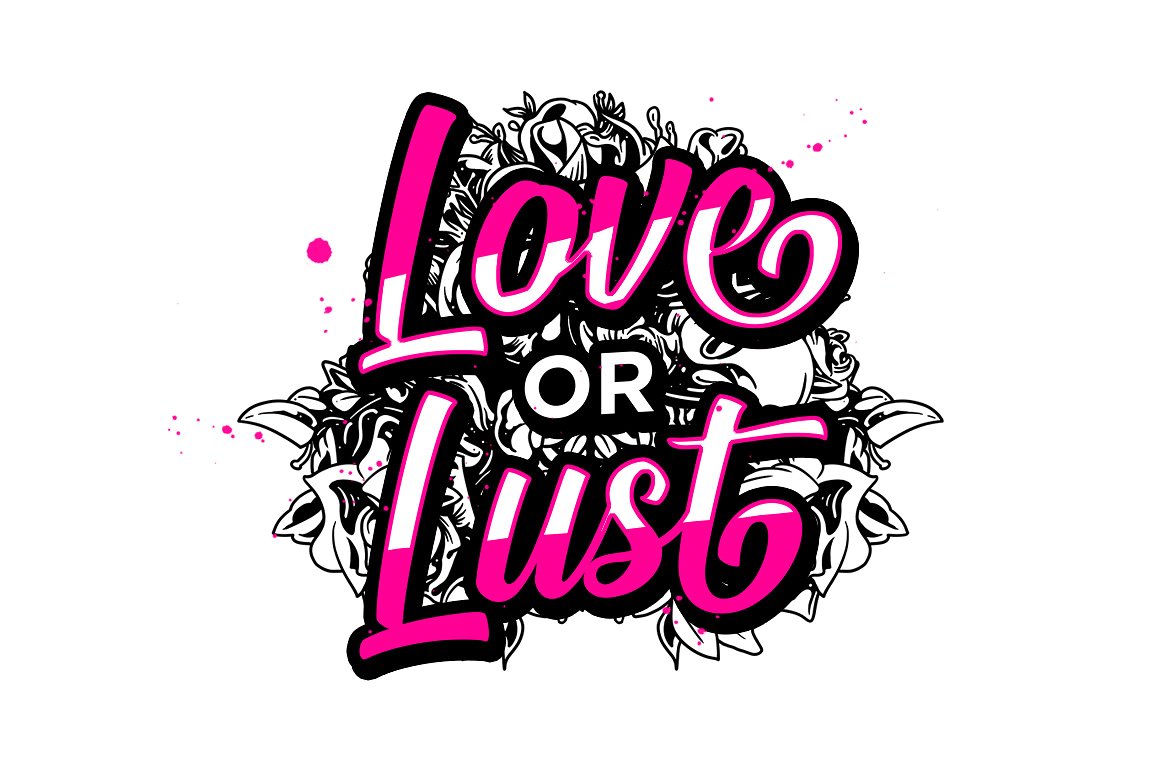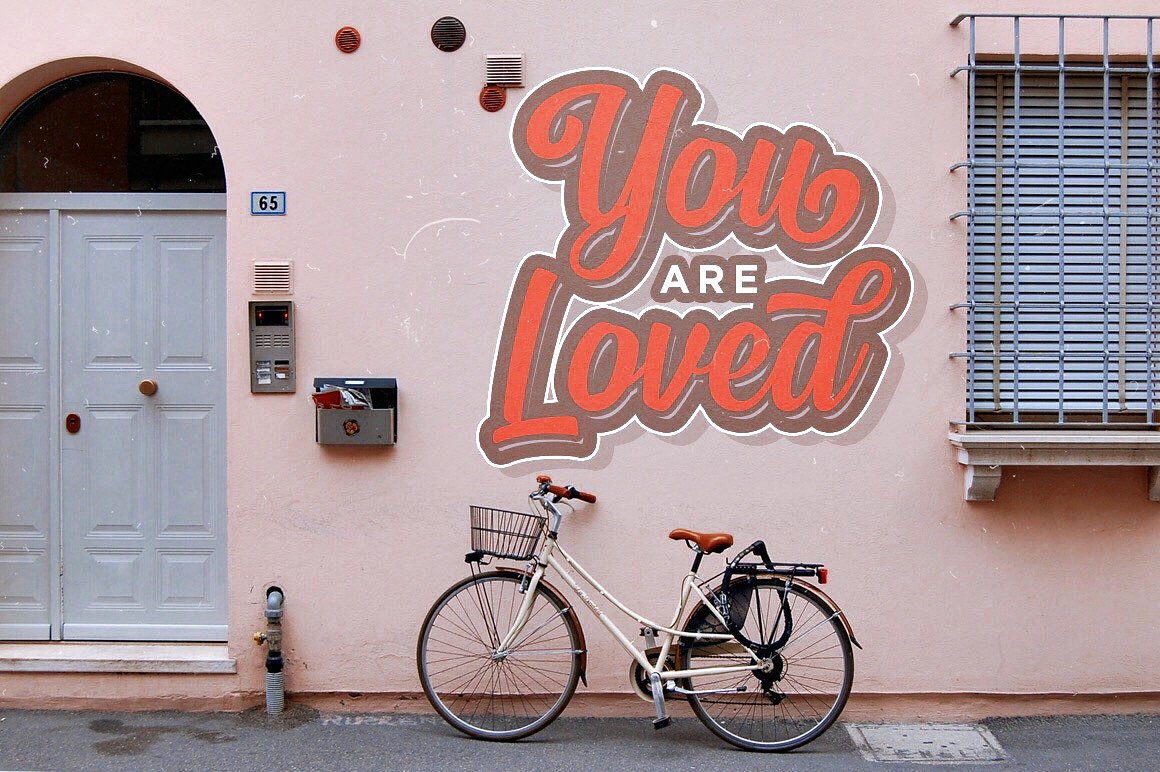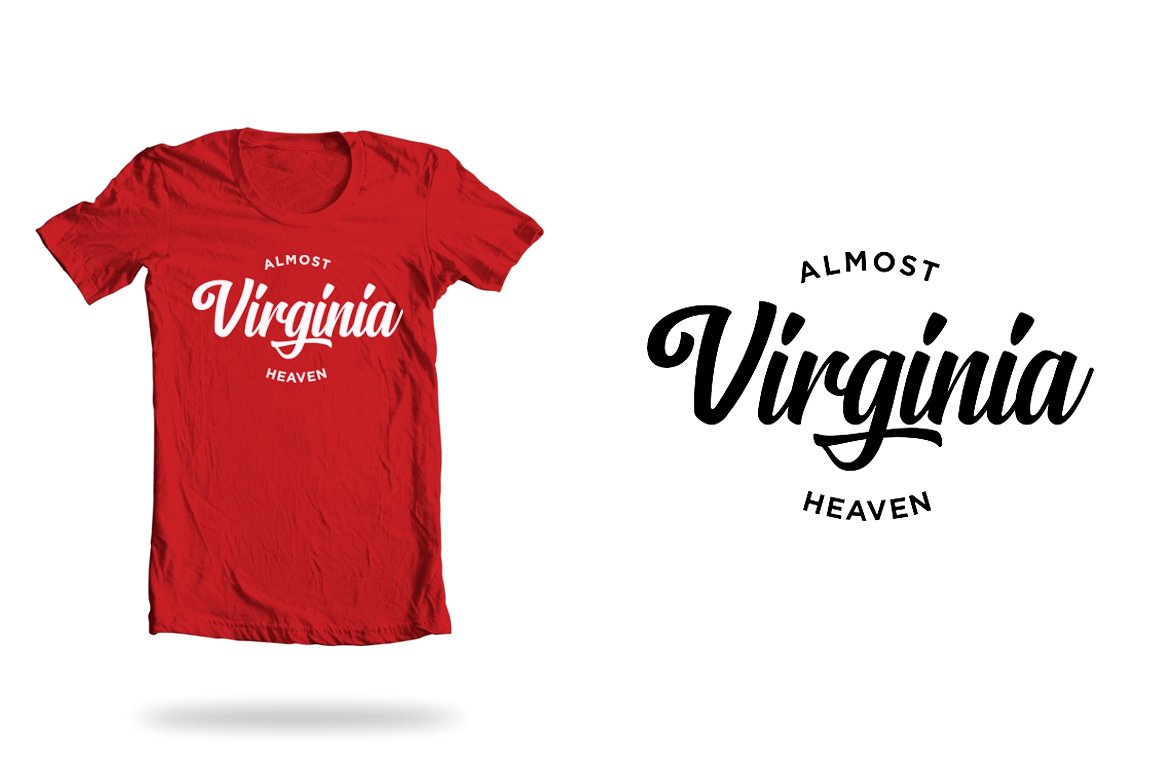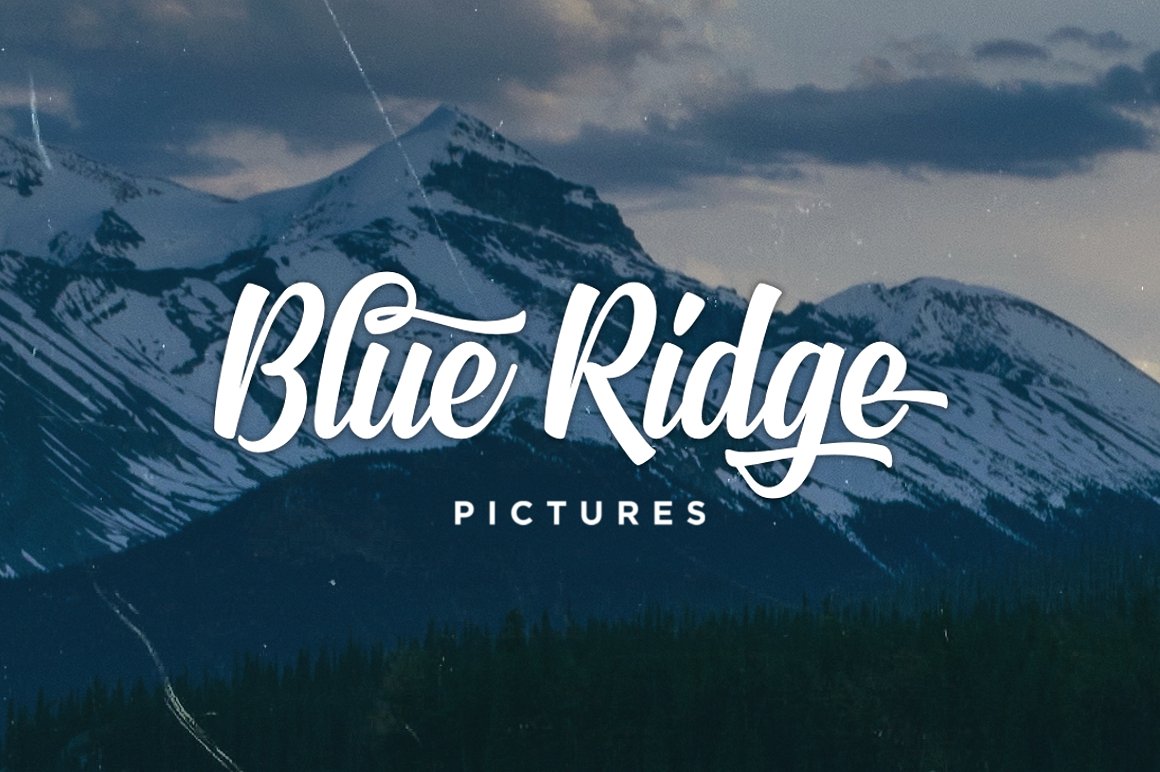
Signatra Script Font
Are you designing a logo template? I would like to introduce to you a logotype style, it will help your design work quickly, and promote your brand prominently. Introducing Signatra Font!Signatra  designed and shared by Twicolabs Fontdation. Signatra – a clean and playful yet trendy typeface. Mouse-crafted with high attention to the details; Signatra offers you a natural hand-lettering/signpainting experience. Suits best for logotype, poster/t-shirt designs, food/beverage labels, greeting cards, wedding invitations, and mandy moore.